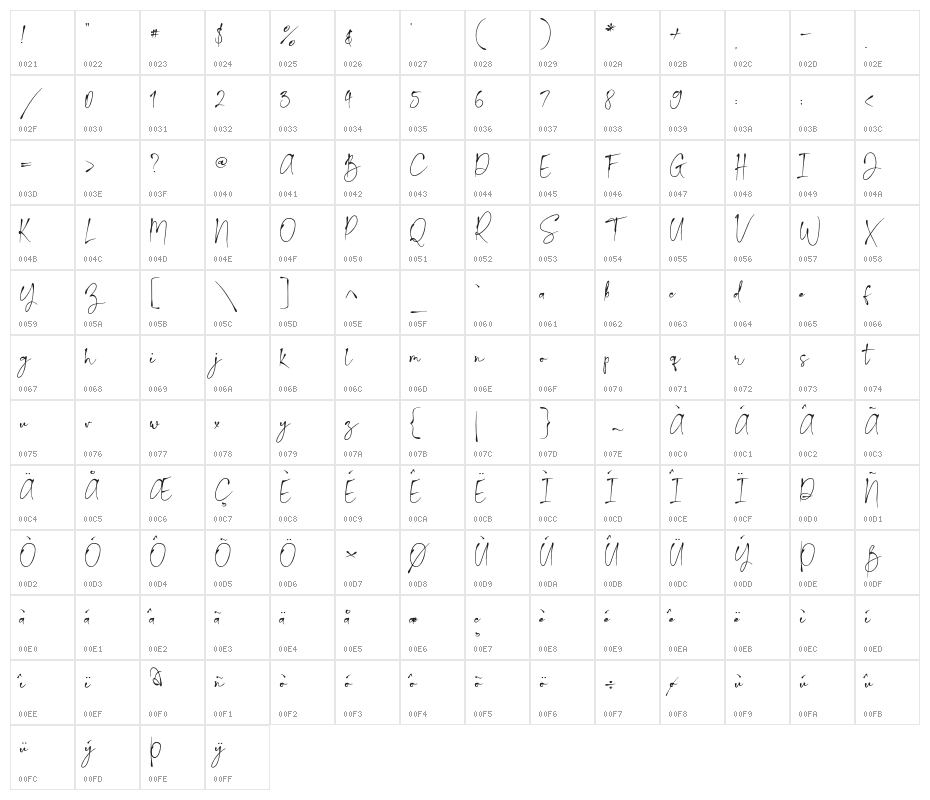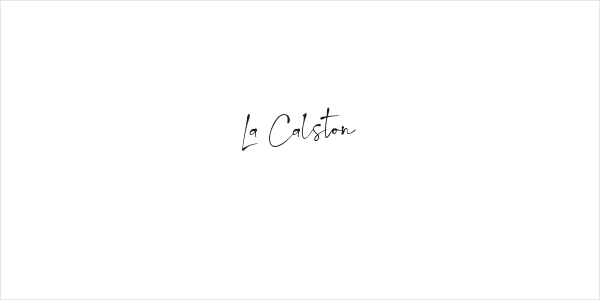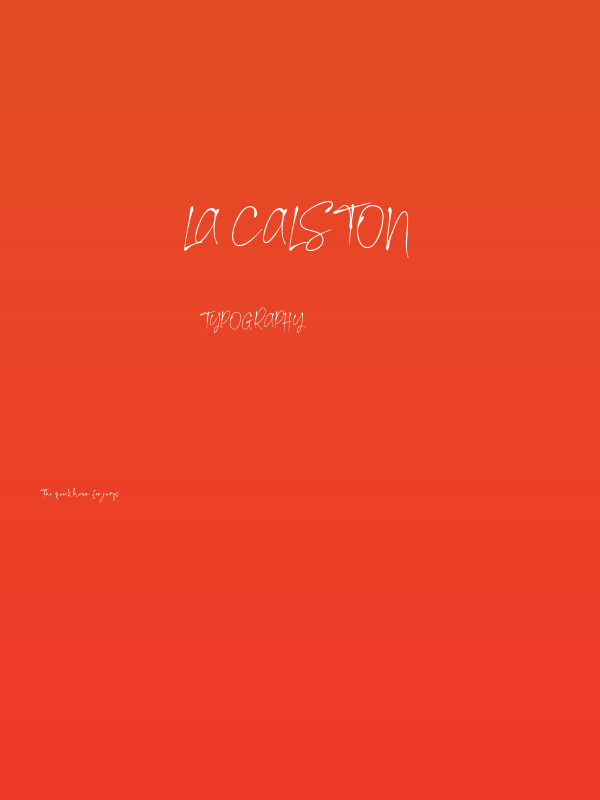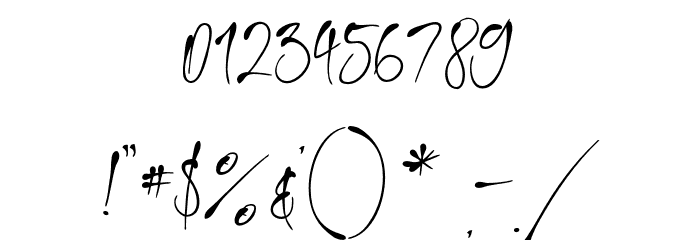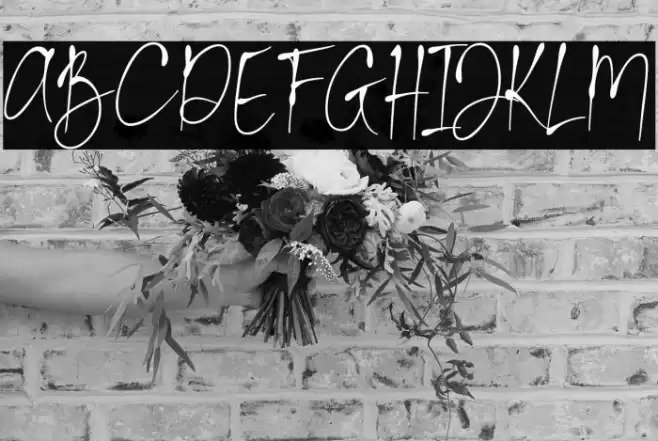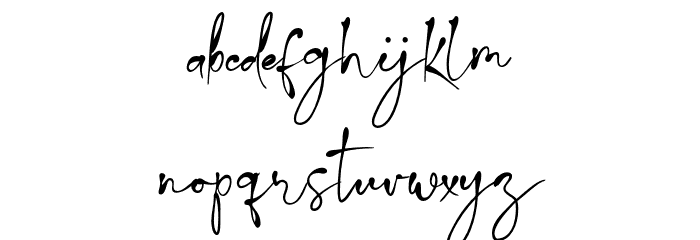
La Calston Font
La Calston Description
This font exudes a lively and expressive character, featuring a handwritten style with flowing, cursive elements. The uppercase letters are tall and elegant, with a slight slant that adds dynamism. Lowercase letters maintain a consistent flow, with loops and curves that enhance its handwritten appeal. The numbers are distinct and maintain the same fluidity, while special characters are creatively integrated, adding to the font's versatility. Its overall appearance is both artistic and approachable, making it suitable for creative projects that require a personal touch.
| Use Case | Logos, Invitations, Personal Branding |
| Proposed Projects | Ideal for wedding invitations, greeting cards, personal branding, and creative posters. |